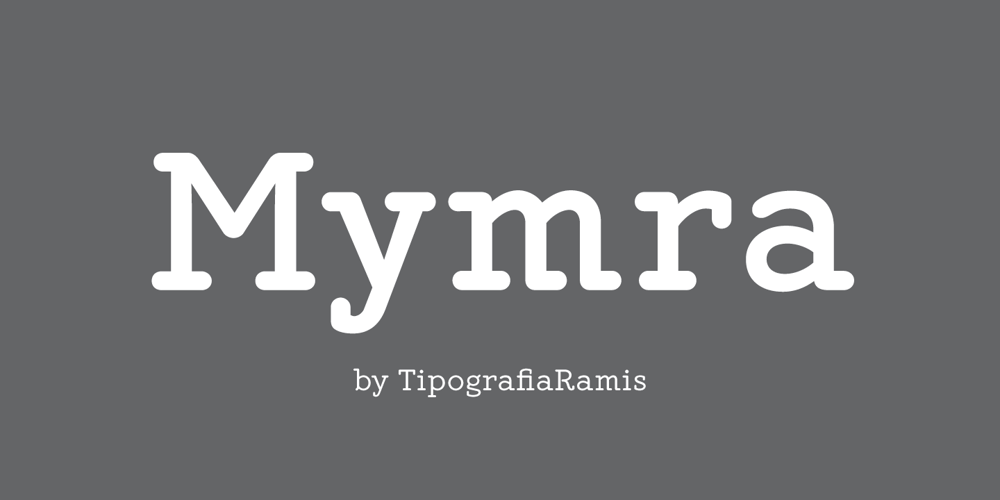
Mymra
Mymra font
Mymra Font Family was designed by Ramiz Guseynov and published by TipografiaRamis. Mymra contains 11 styles and family package options. Mymra fonts – an upgraded version of Mymra Forte and Mymra Mono (2009), with a careful re-dress of glyph shapes, and the extension of glyph amounts – which enables support of more Latin languages. One more weight – Black – has been added to the original three of Mymra Forte fonts. Fonts are intended for use in a vast variety of publications.